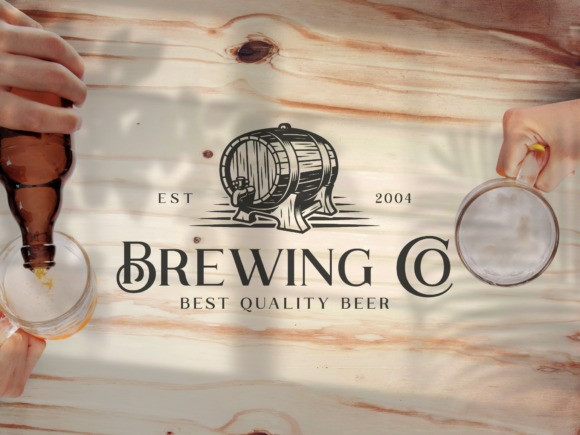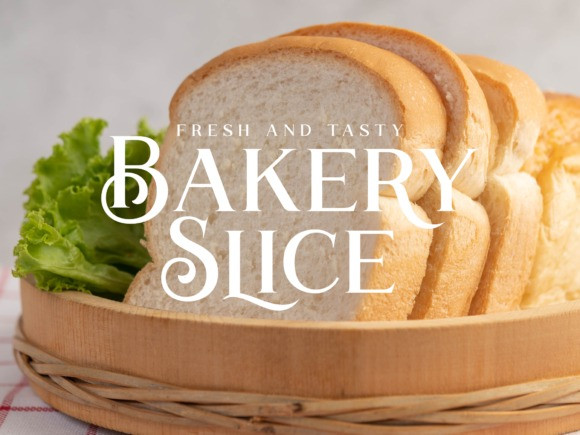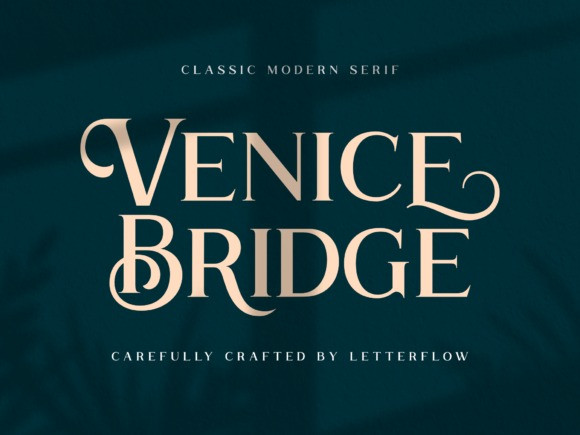
Venice Bridge Font
Venice Bridge Font is an elegant and distinct serif font. It has a classy, elegant and modern look that can be used for logos, branding, invitations, stationery, wedding designs, social media posts, and much more!